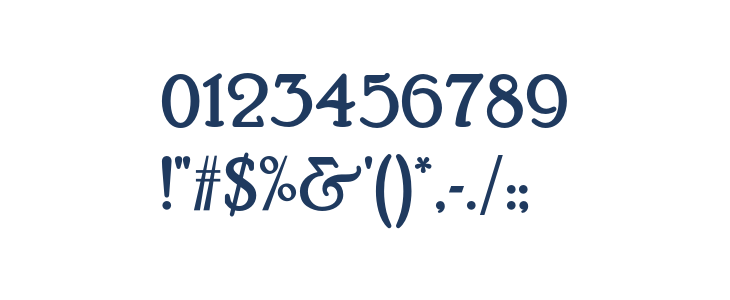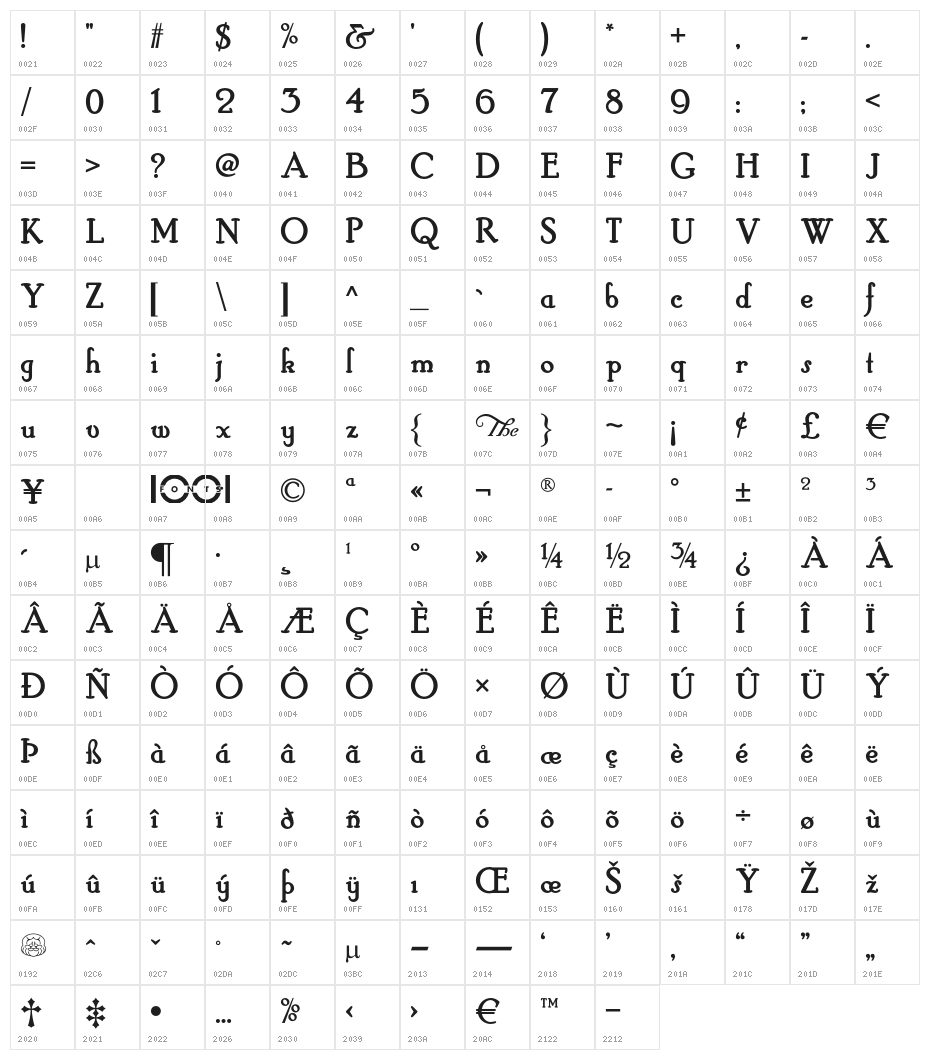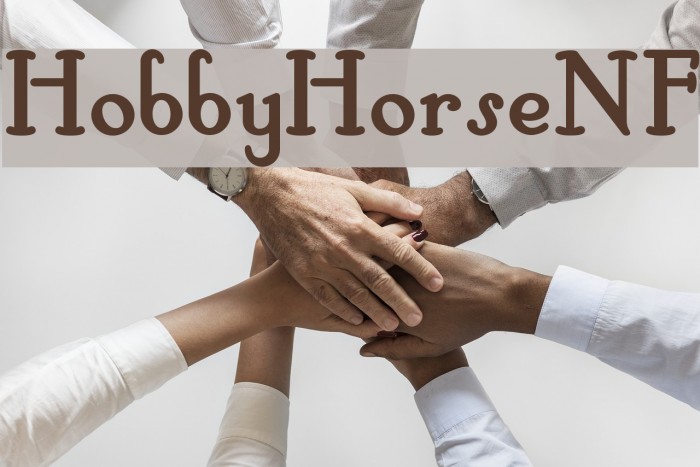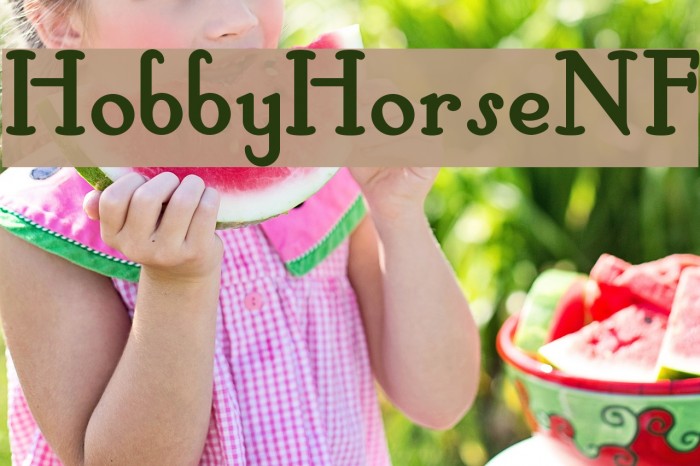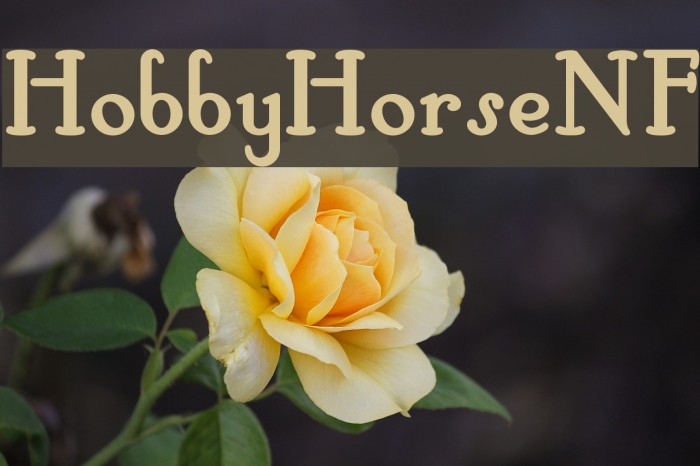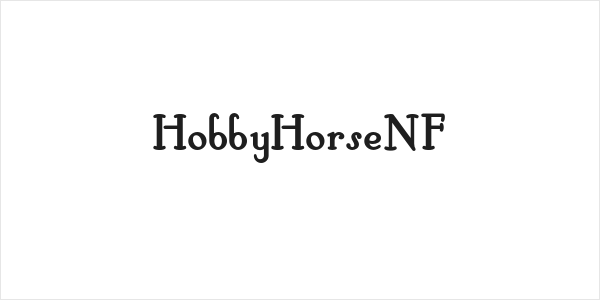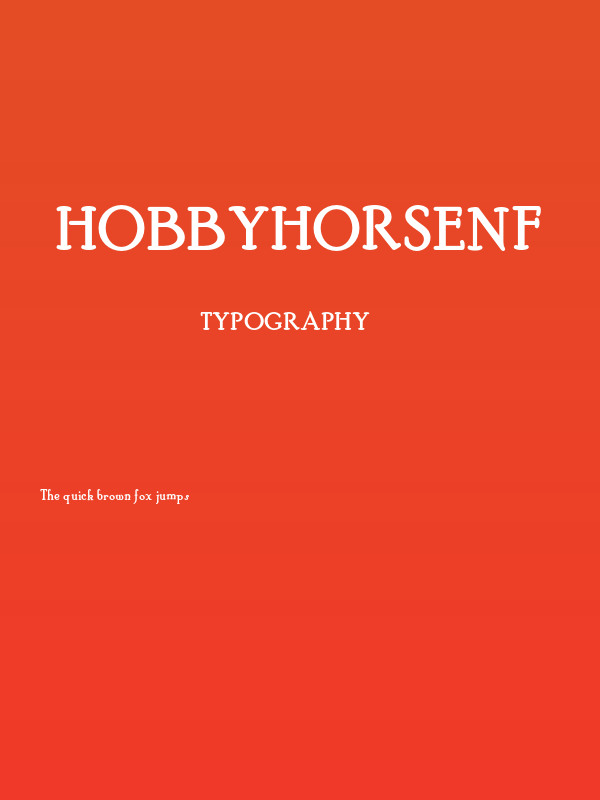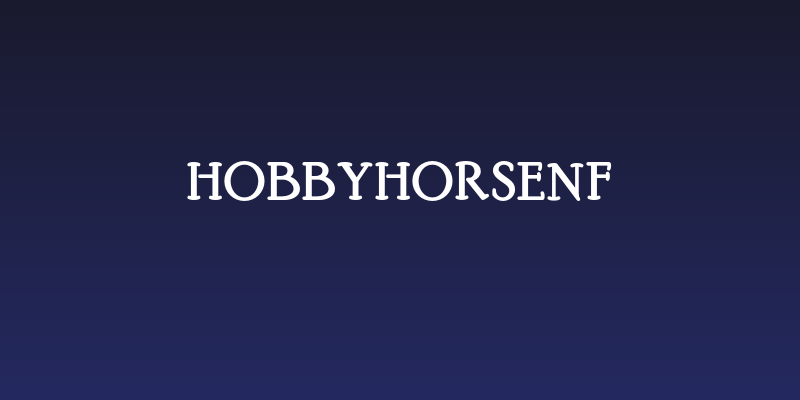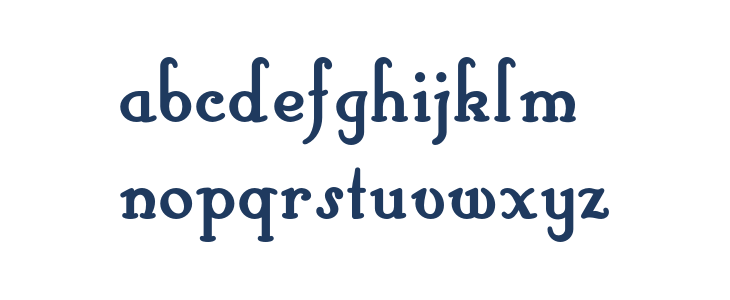
HobbyHorseNF Font
HobbyHorseNF Description
This font features a playful and whimsical design with a vintage flair. The characters are bold and rounded, with a slight serif that adds a touch of elegance. The uppercase letters are tall and commanding, while the lowercase letters maintain a consistent flow, creating a harmonious balance. Numbers are robust and clear, making them easily legible. Special characters are uniquely styled, adding to the font's overall charm. The font's design is reminiscent of early 20th-century typefaces, making it suitable for projects that require a nostalgic or retro aesthetic.